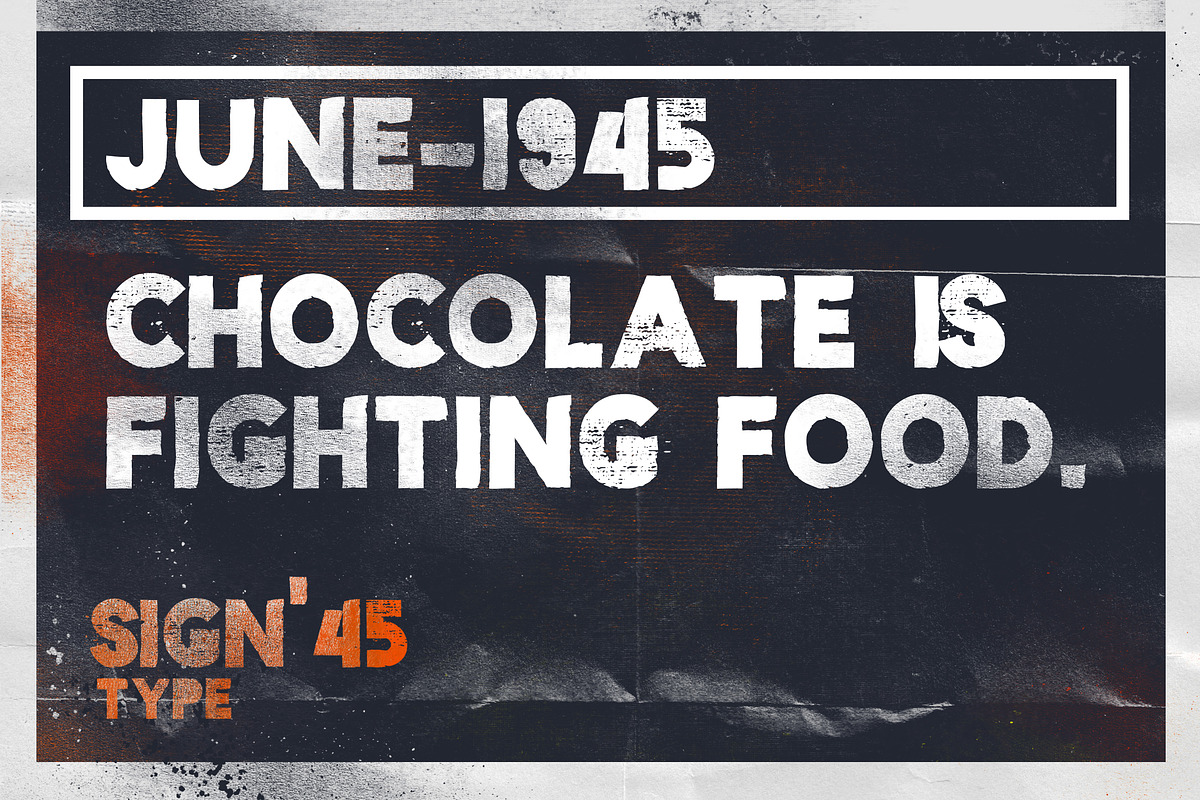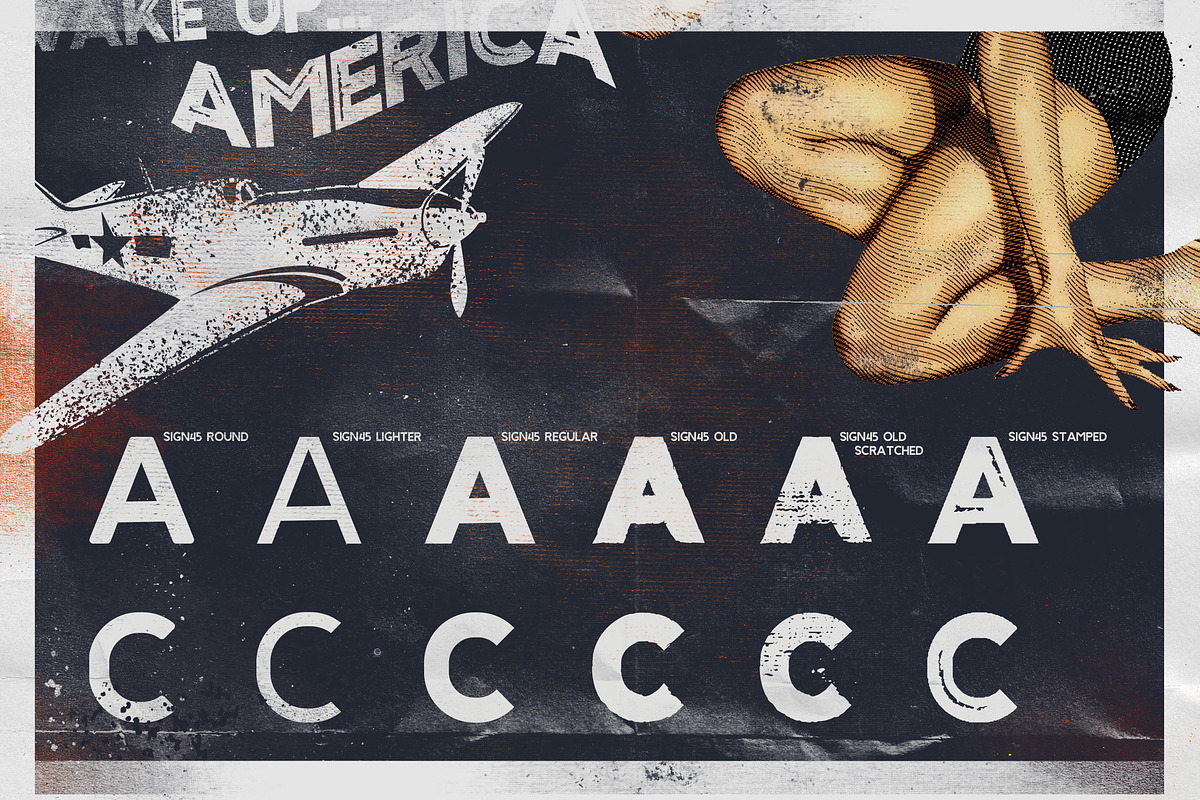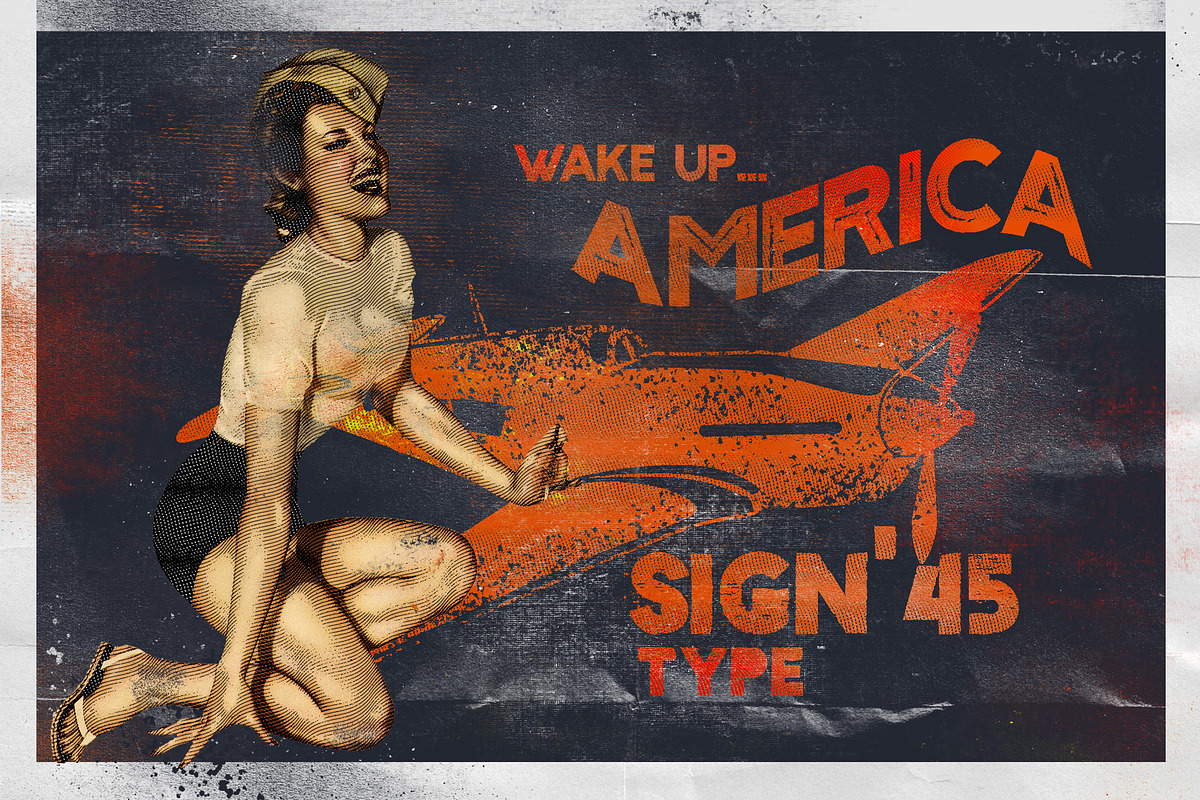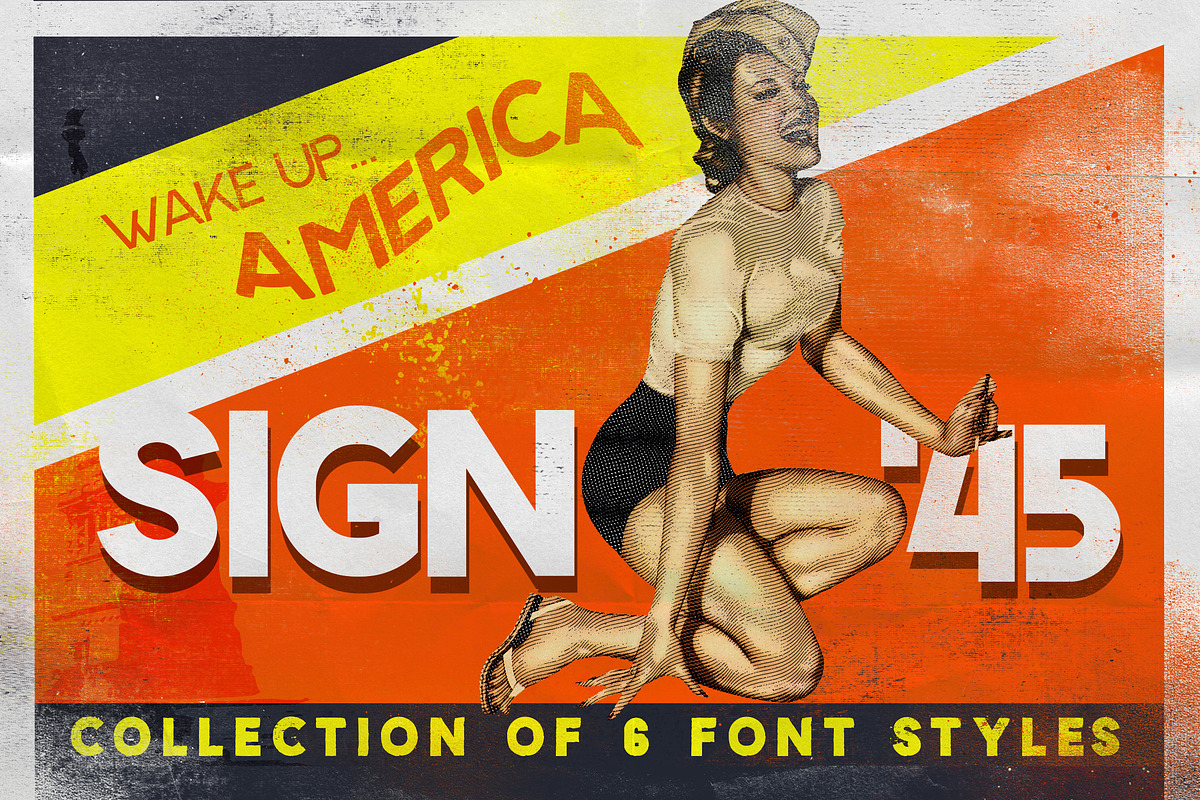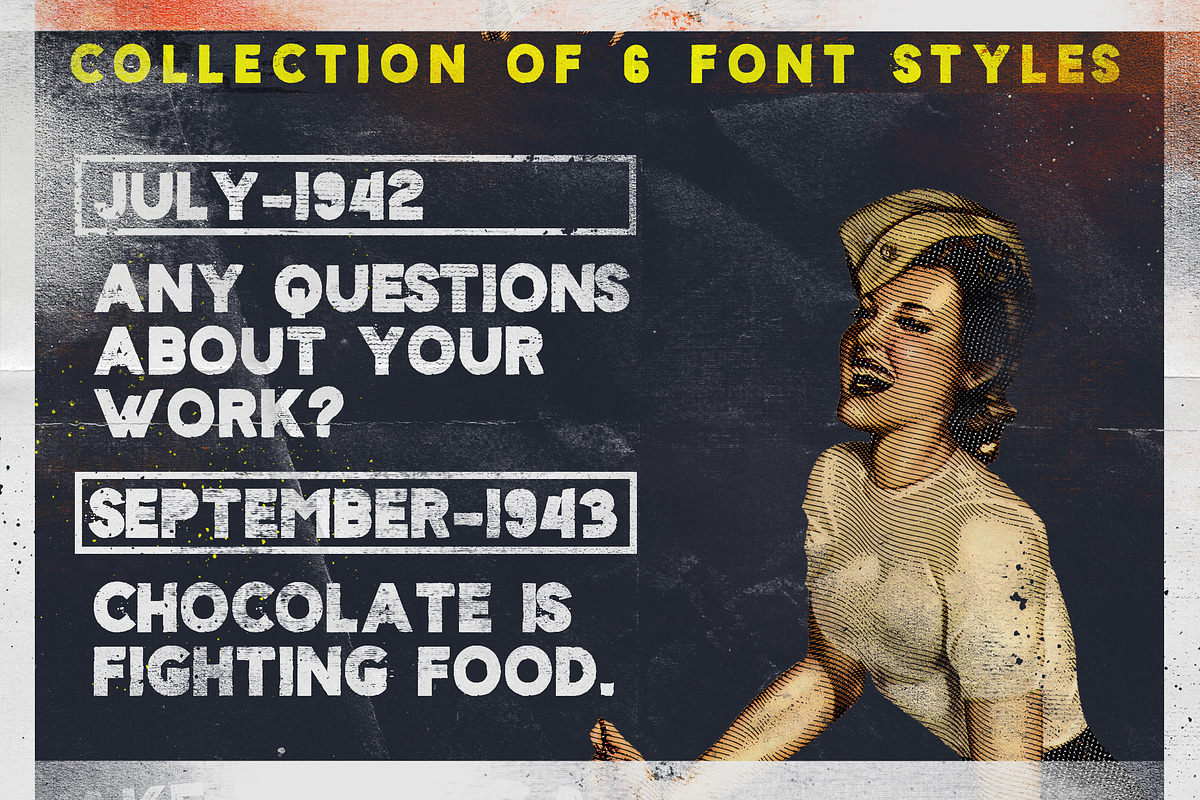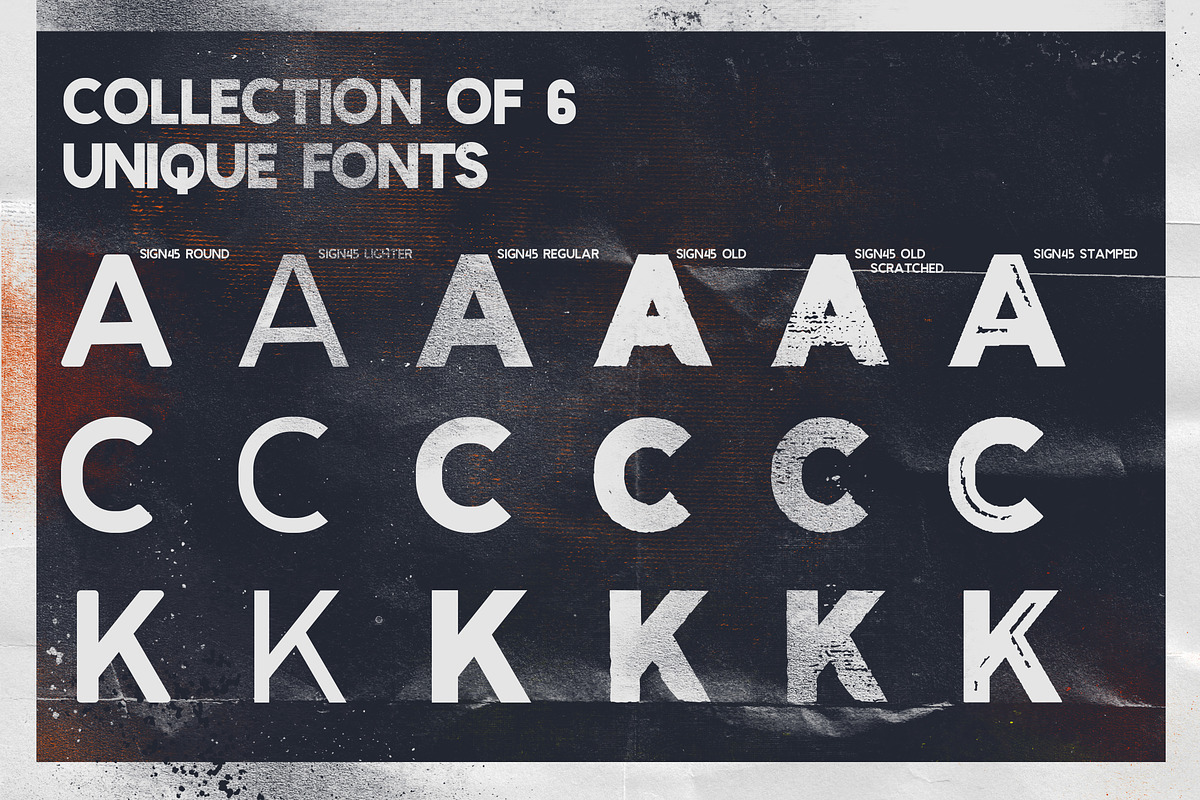
Sign '45 Typeface -50%
Sign '45 Typeface -50% by LeoSupply.co is a font selected for branding, posters, packaging, typography.
- Collection of 6 different styles of font.
Why Sign '45 Typeface -50% is worth a look
Sign '45 Typeface -50% by LeoSupply.co fits naturally into Branding, posters, packaging, typography.